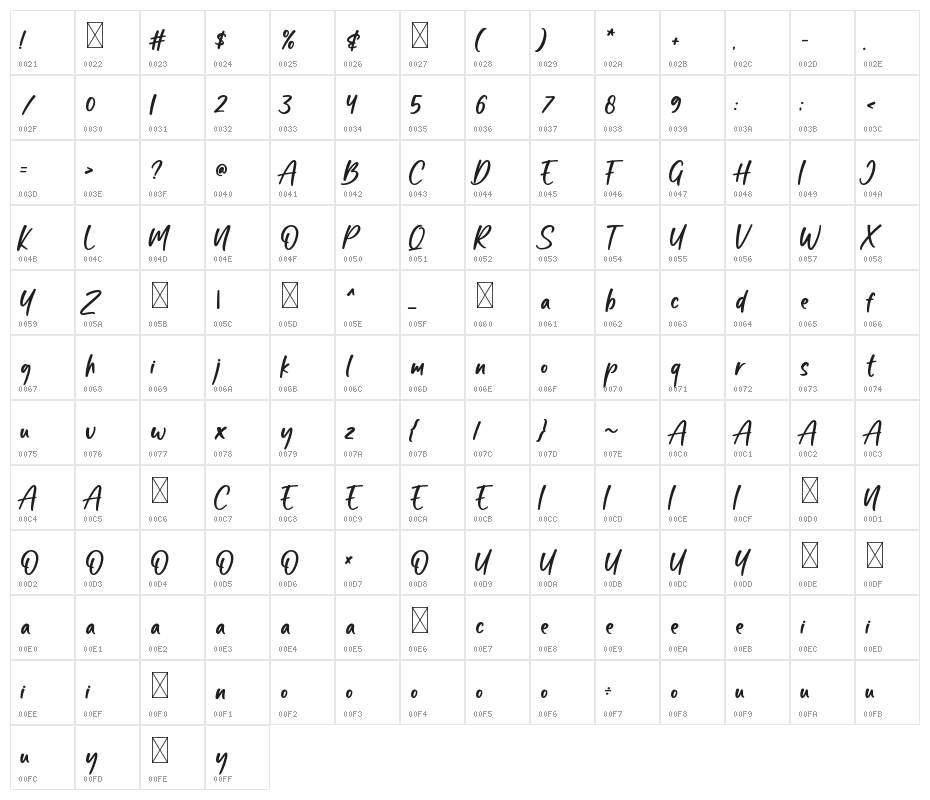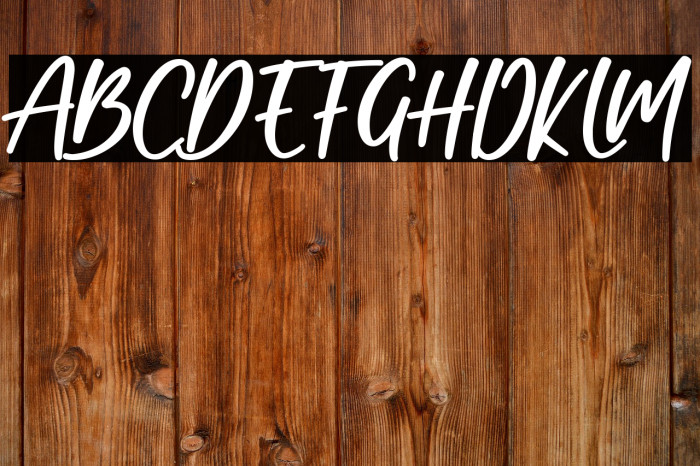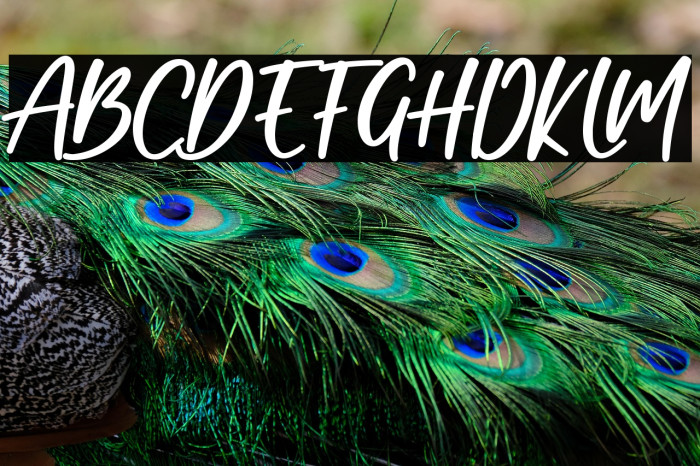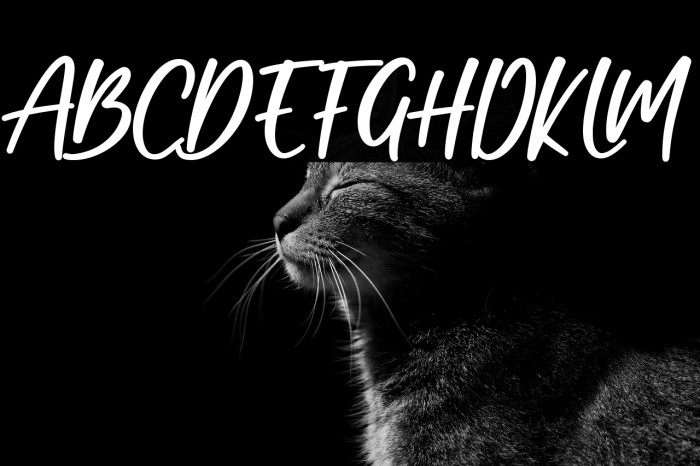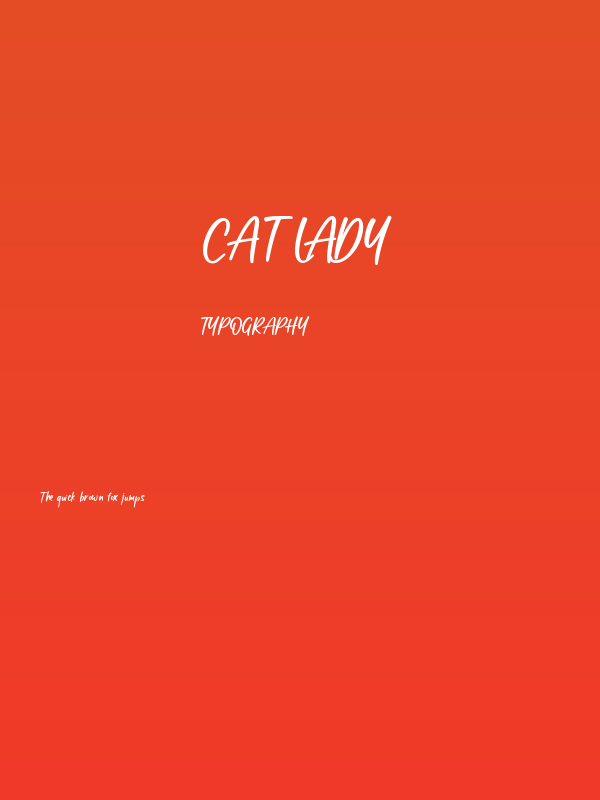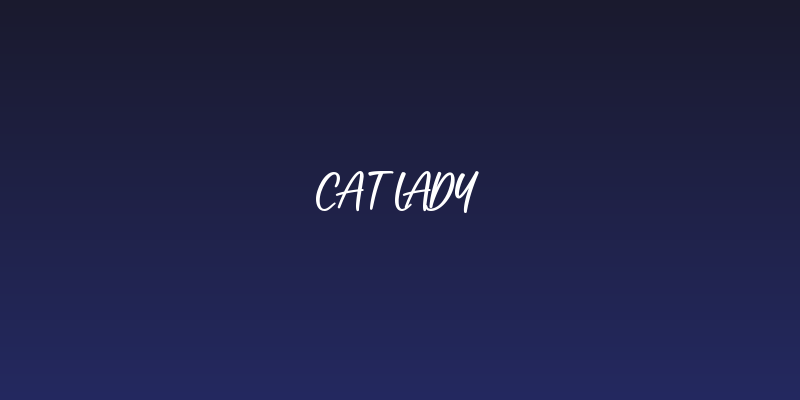
Cat Lady Font
Cat Lady Description
This font exudes a lively and energetic vibe with its handwritten style, characterized by smooth, flowing curves and a slightly slanted orientation. The uppercase letters are bold and dynamic, while the lowercase letters maintain a consistent rhythm, enhancing readability. The numbers are well-integrated with the overall style, maintaining the same fluidity and expressiveness. Special characters are crafted with the same attention to detail, ensuring they blend seamlessly with the rest of the font. This font is perfect for projects that require a personal touch, such as invitations, greeting cards, or branding materials that aim to convey warmth and approachability.
| Use Case | Headlines, Logos, Invitations |
| Proposed Projects | Ideal for invitations, greeting cards, branding, and any project needing a personal touch. |